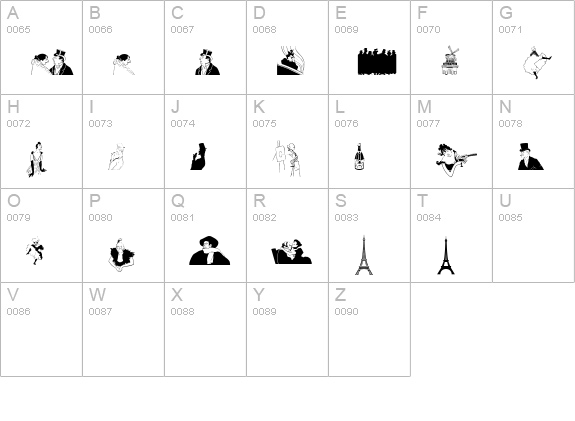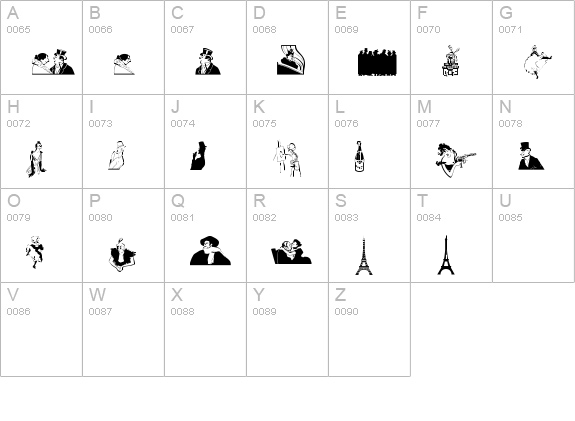
TLToulouse-LautrecOrnaments Font Details
TLToulouse-LautrecOrnaments is a stunning and intricate font that pays homage to the iconic art style of the renowned French painter Henri de Toulouse-Lautrec. This font captures the essence of Toulouse-Lautrec's imaginative and expressive artwork, with its elaborate and delicate ornamentation. Each character of TLToulouse-LautrecOrnaments is meticulously crafted, featuring subtle curves, ornate flourishes, and intricate details that reflect the artist's attention to detail. The font exudes a sense of elegance and sophistication, making it perfect for adding a touch of artistic flair to any design project. Whether you're designing invitations, creating a logo, or working on a branding project, TLToulouse-LautrecOrnaments will bring a unique and timeless charm to your work. Its versatility allows it to be used for both formal and decorative purposes, making it suitable for a wide range of design applications. What makes TLToulouse-LautrecOrnaments even more remarkable is that it is freely available to download at FontsMarket.com. This means that you can easily access and utilize this beautiful font in your design projects without any cost. It is a rare opportunity to have such a high-quality font available for free, allowing designers to elevate their creations without breaking the bank. So, if you're looking to add a touch of artistic elegance to your designs, TLToulouse-LautrecOrnaments is the perfect font to consider. Its intricate details, elegant curves, and timeless charm will undoubtedly make your designs stand out. Download it for free now at FontsMarket.com and unlock the artistic potential of TLToulouse-LautrecOrnaments.